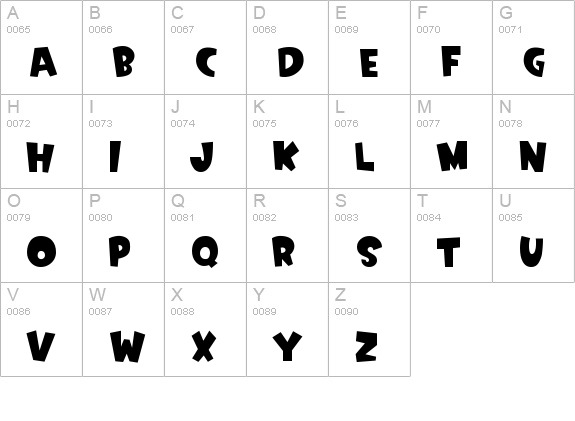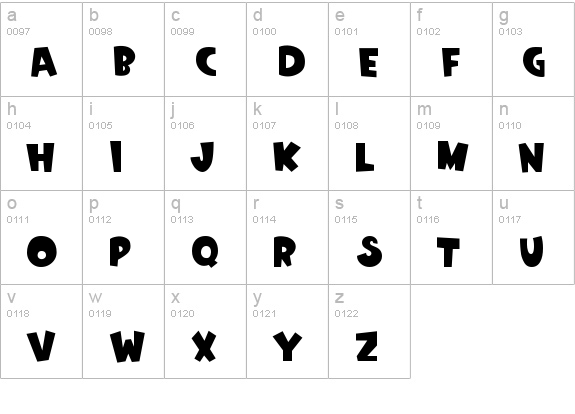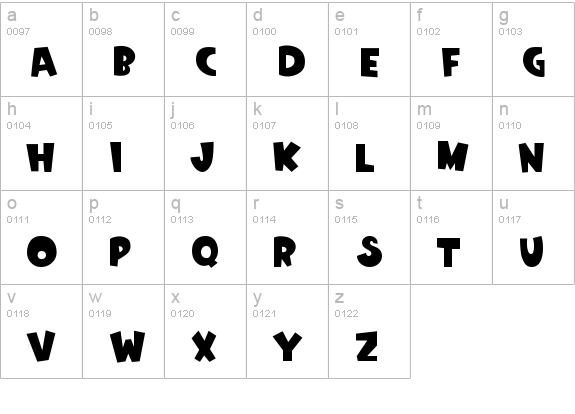
A_ Soviet Toony Regular Font Details
A_ Soviet Toony Regular is the standard, neutral variant in the A_ typeface family \xE2\x80\x94 well suited to general body text, paragraphs, and standard typographic work.
A_ Soviet Toony Regular is a demo font in the Fancy > Comic category, designed by goynov. It has been downloaded 49 times and is available for Windows, Mac and Linux.